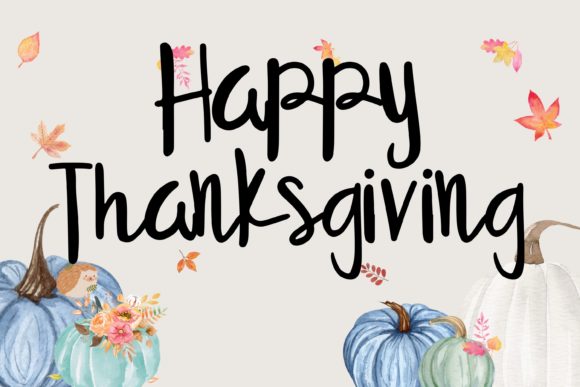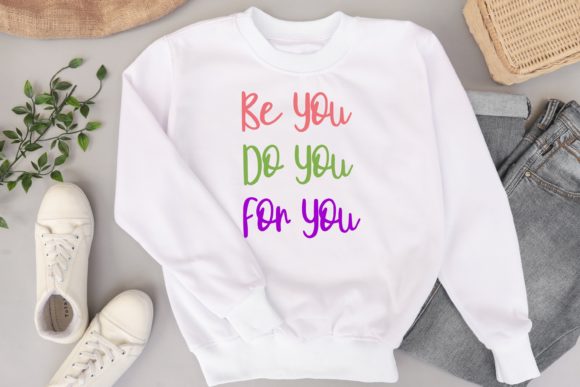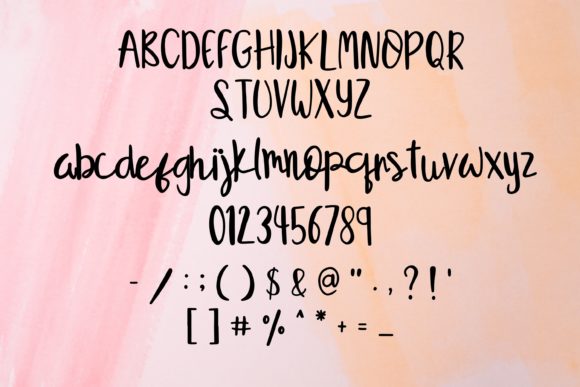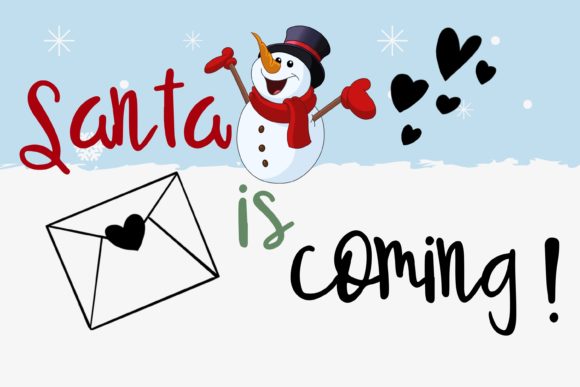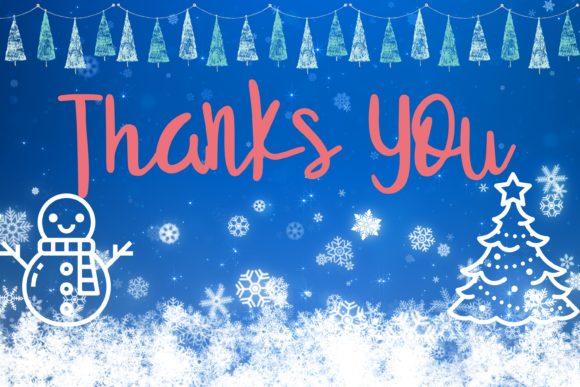
Reindeer Font
About Reindeer Font
Reindeer is a sweet, whimsical, and flowing script font. Featuring characters that dance along the baseline, this font will add a luxury spark to any design project that you wish to create!